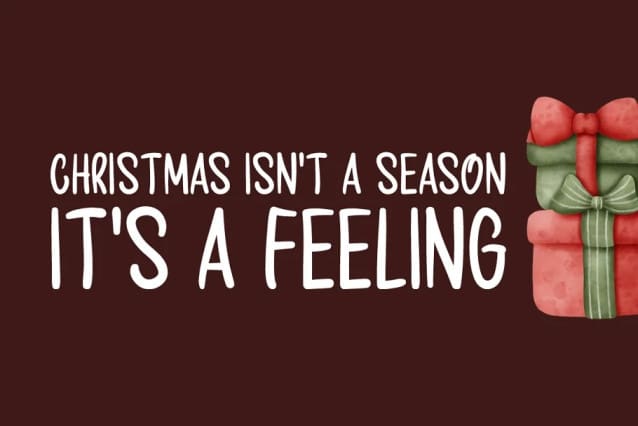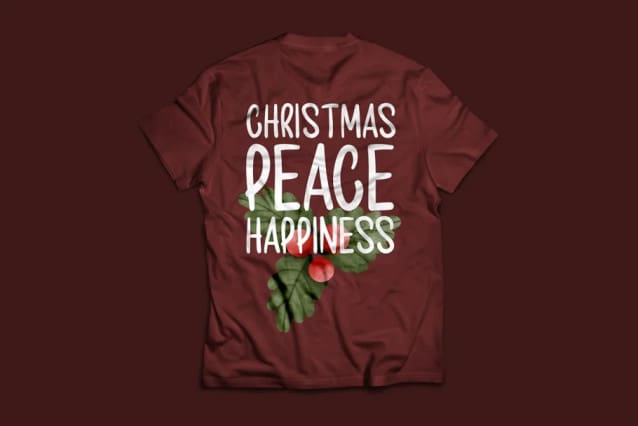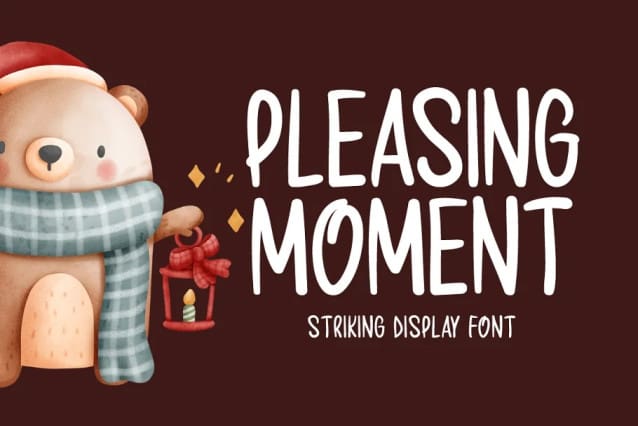
Pleasing Moment Font
Pleasing Moment Font is a striking display font. It is perfectly suited for stationery, logos, t-shirt, paper, print designs, website headers, photo frames, flyers, music covers, posters, image sliders, and much more.